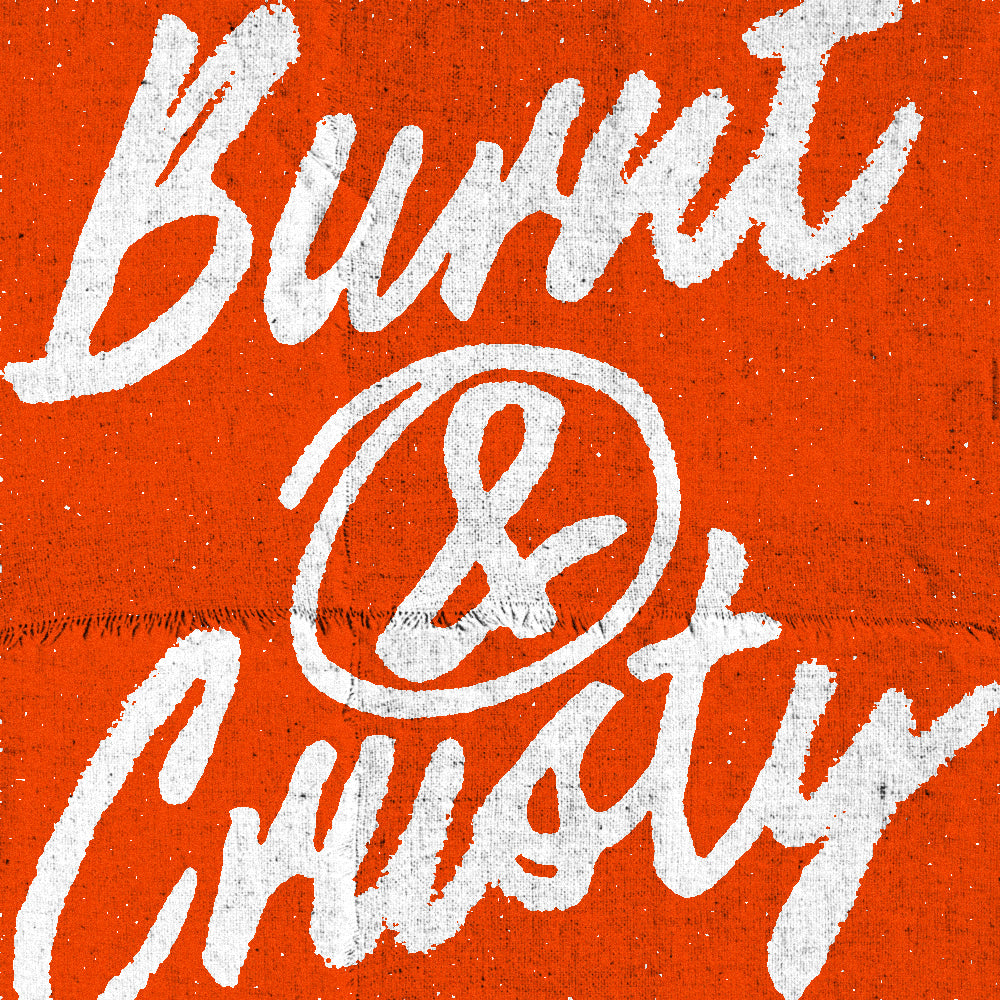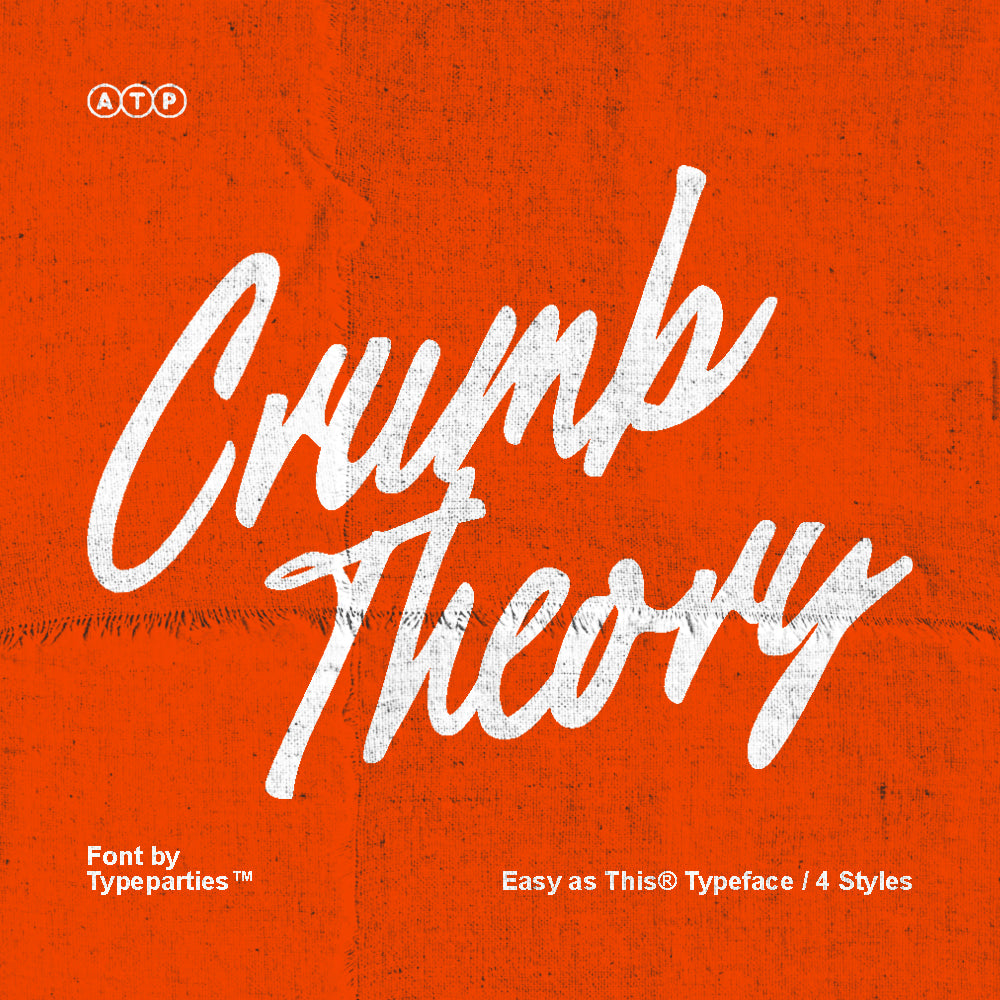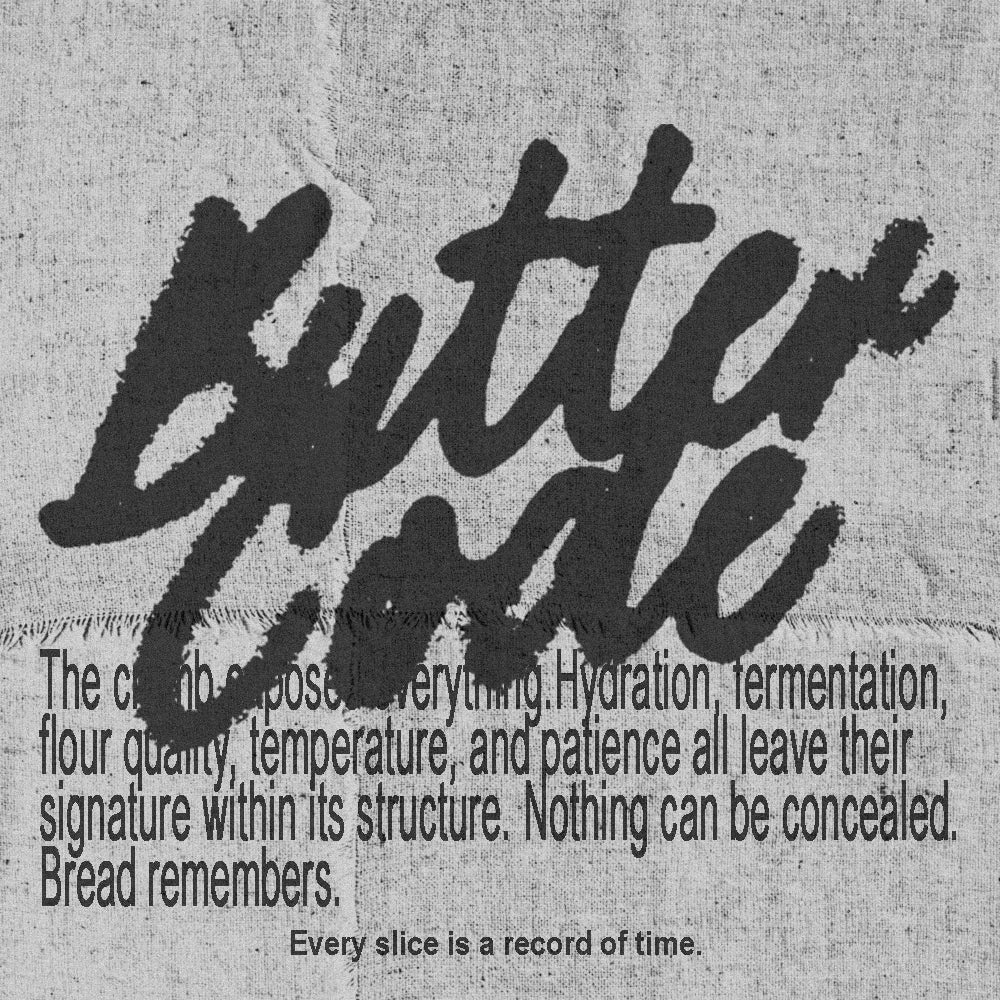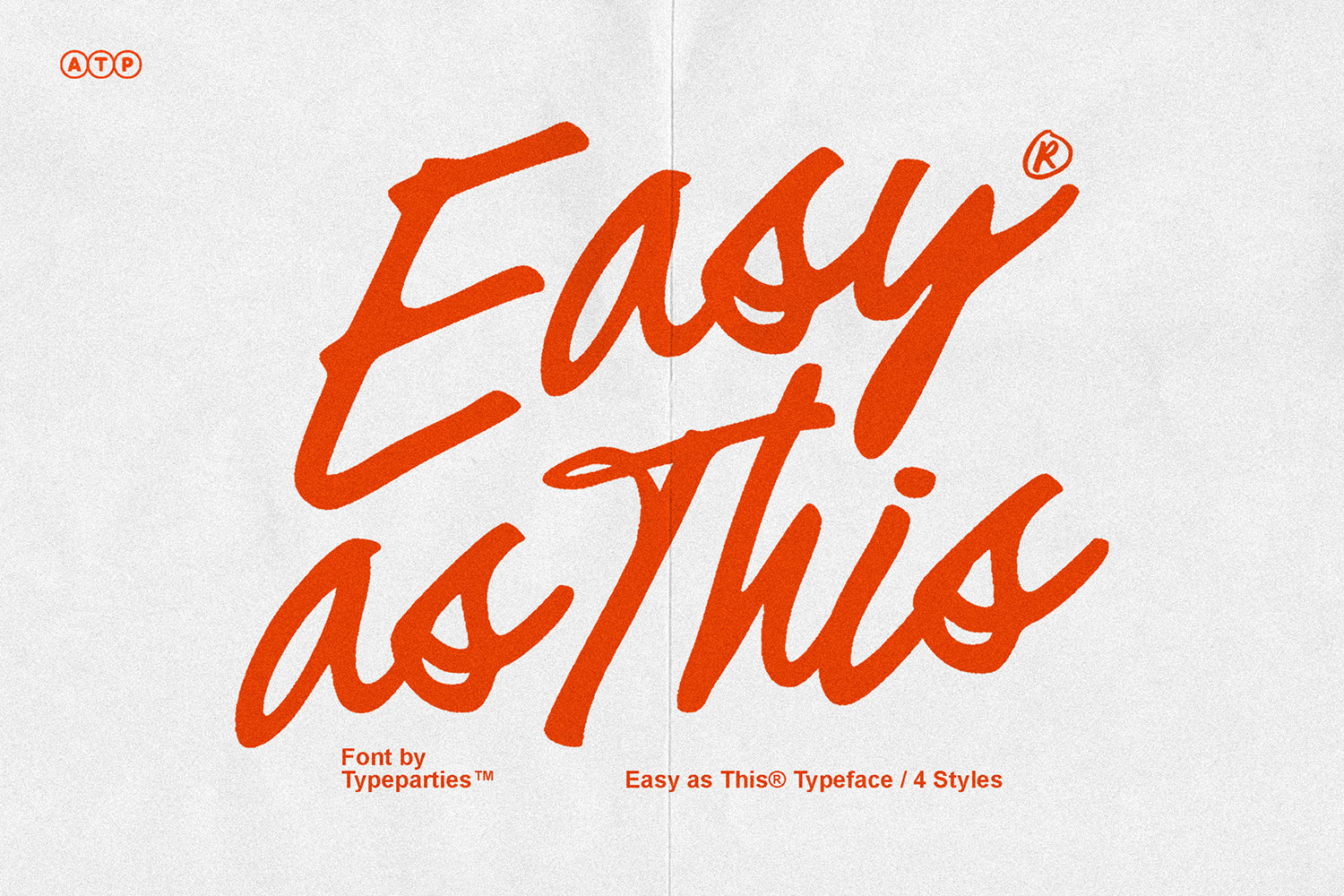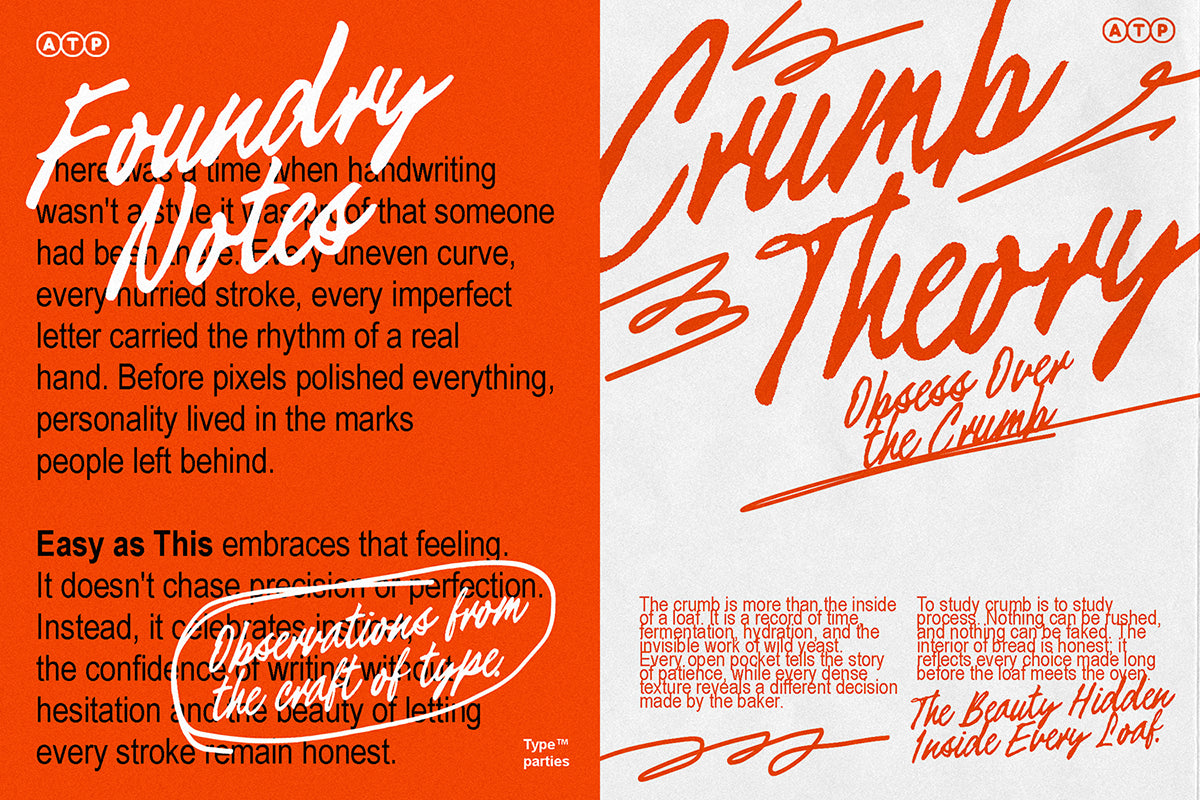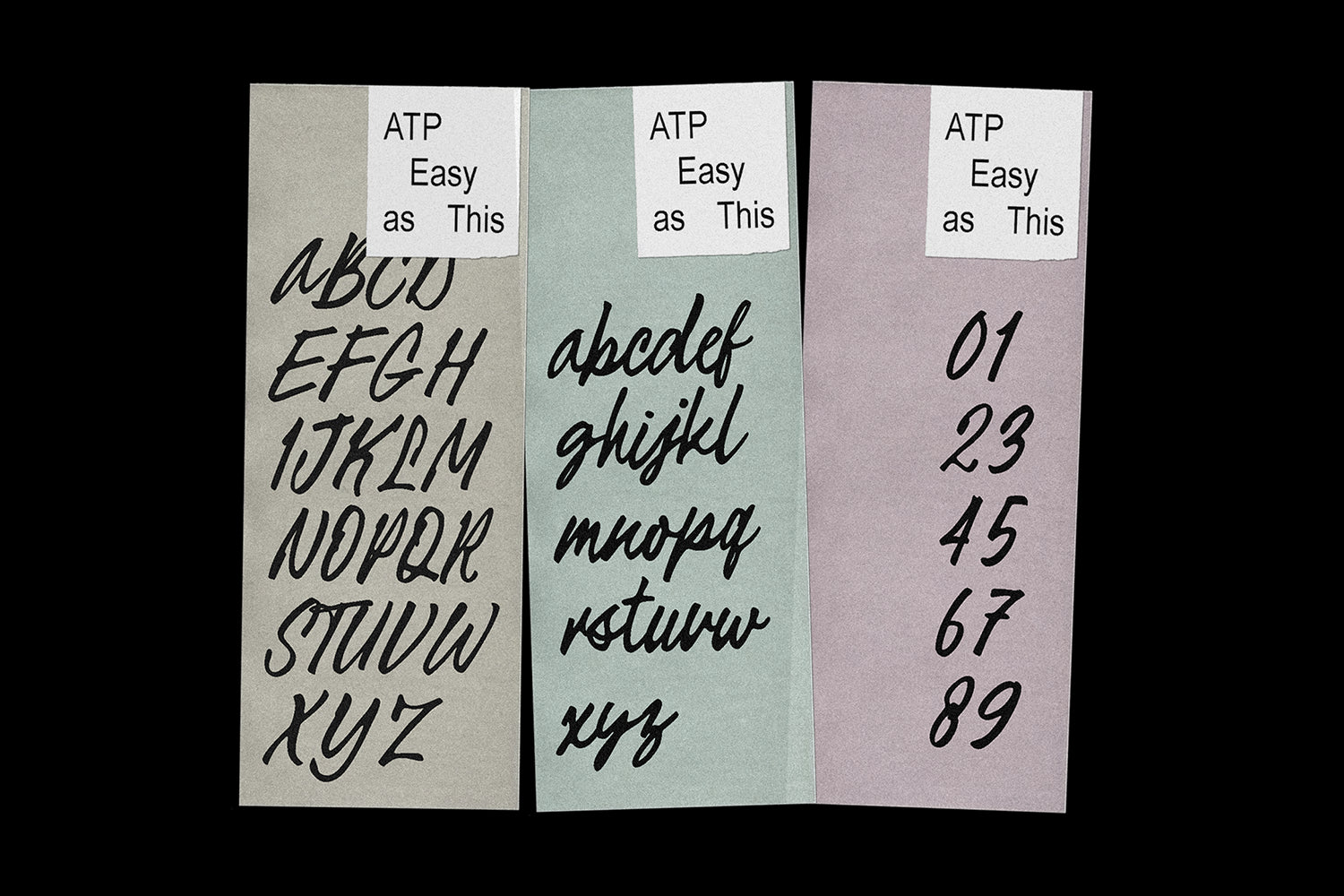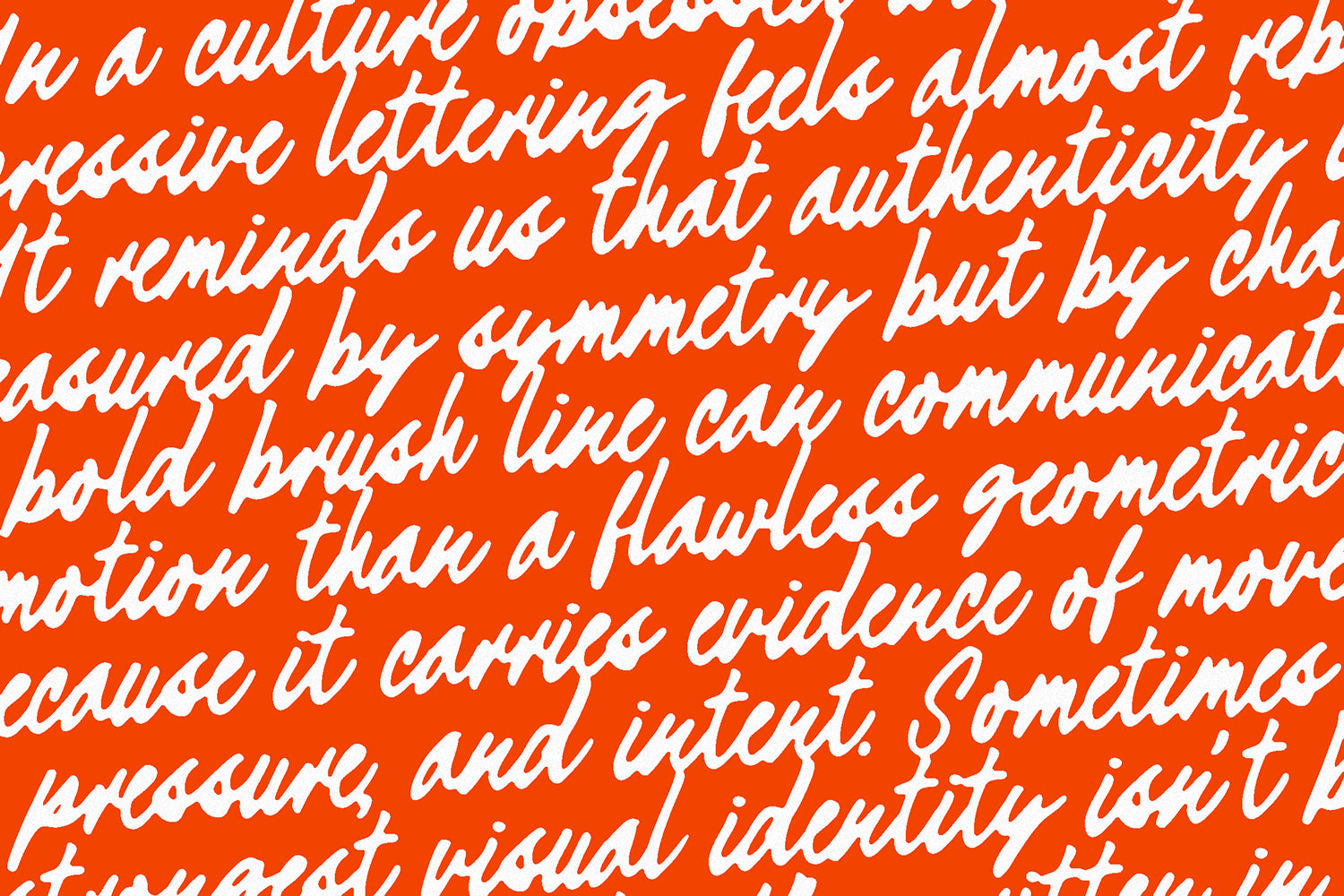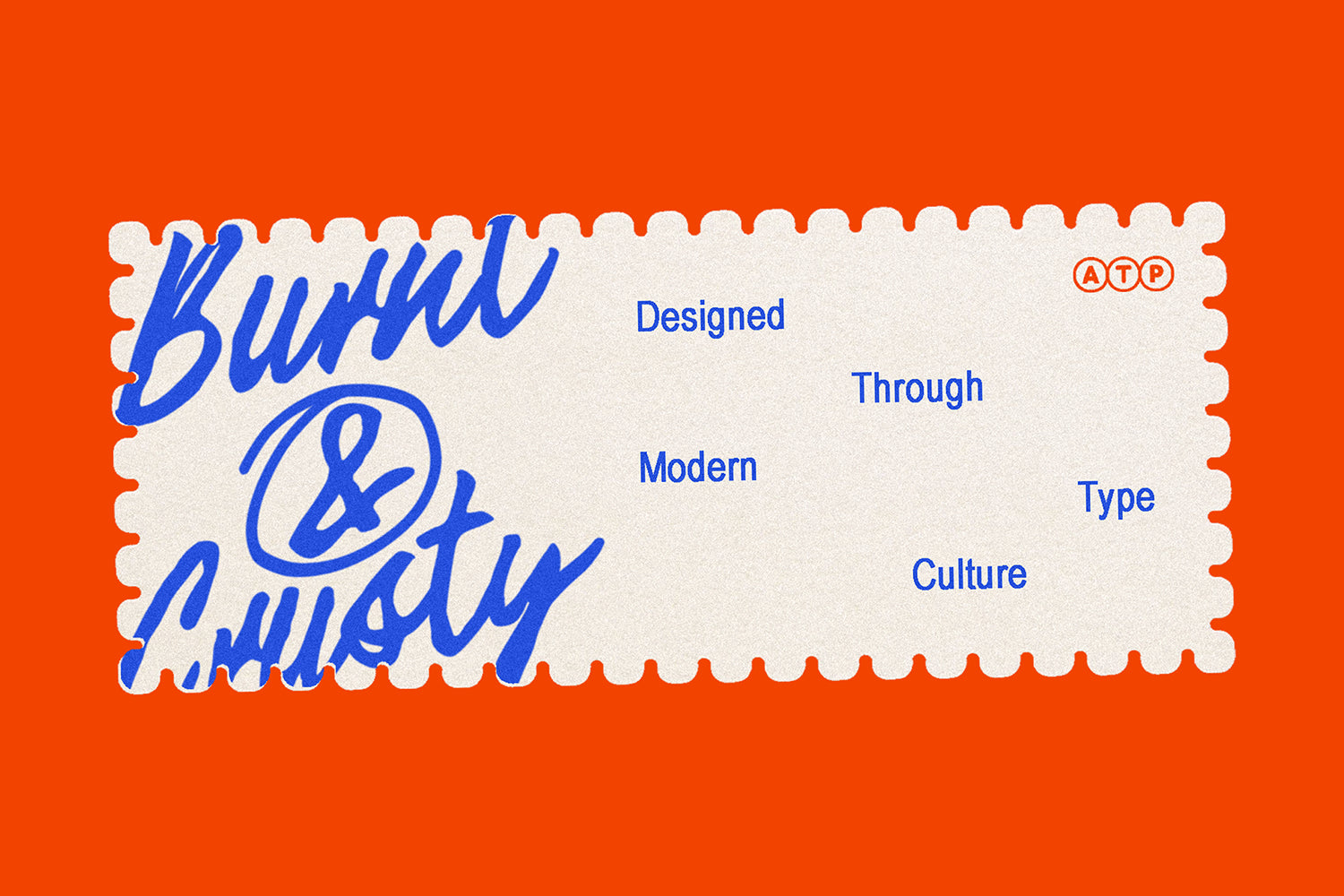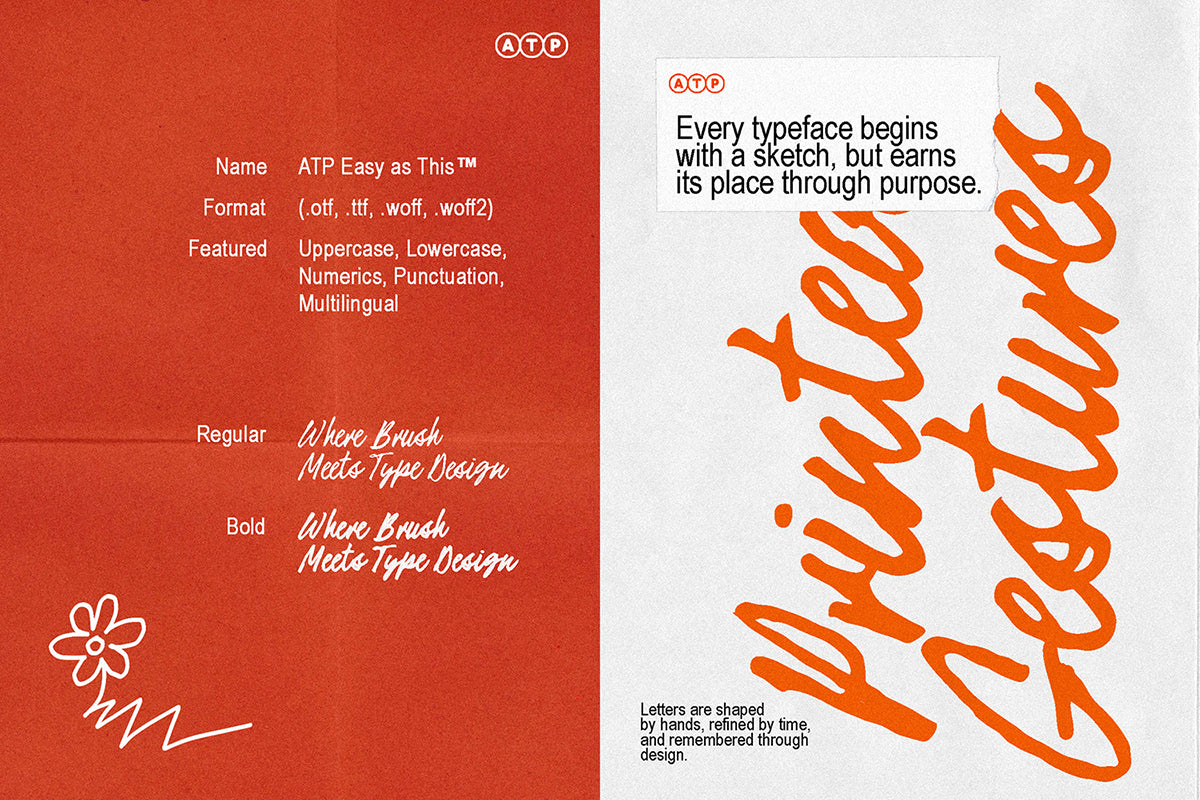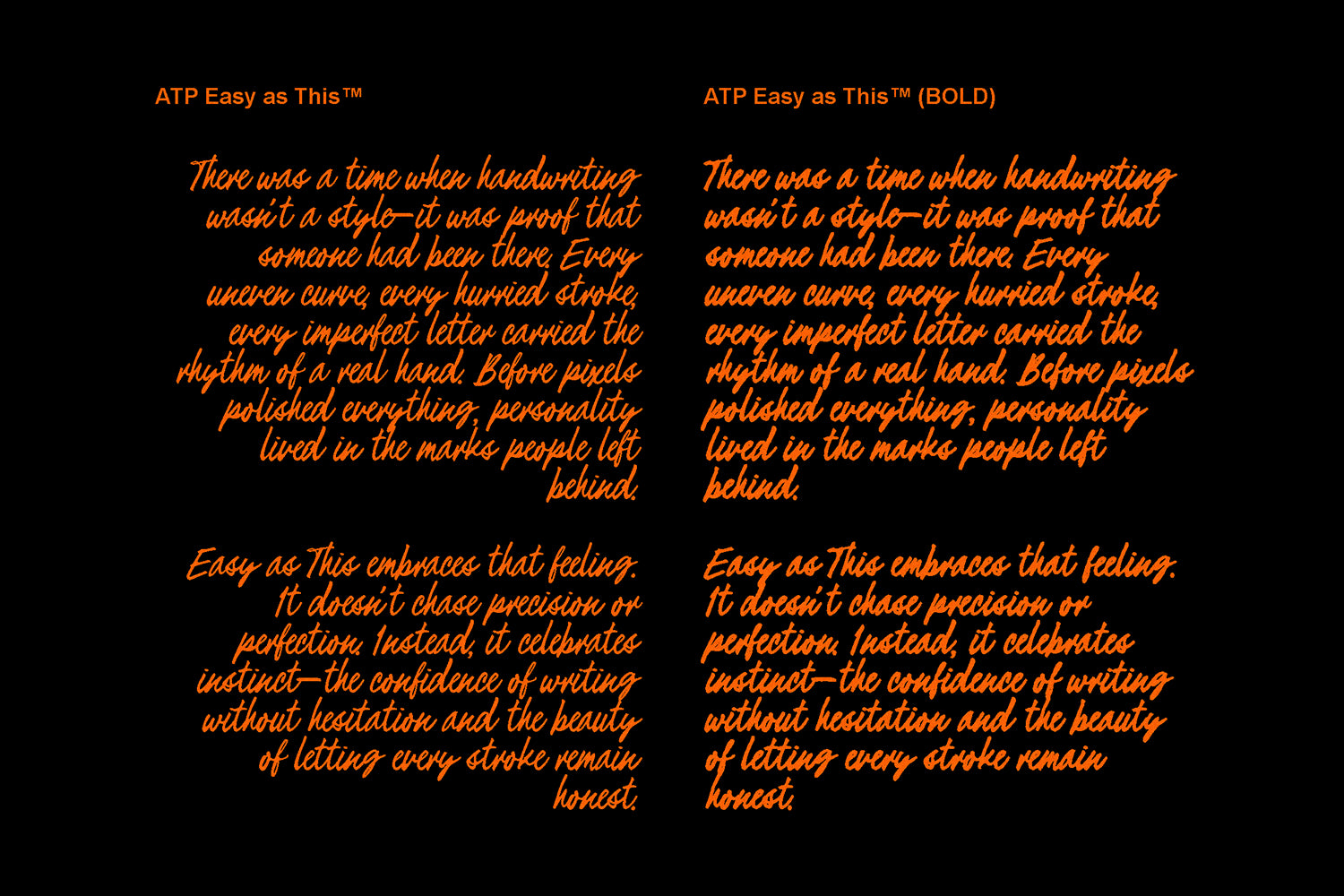
Easy as This - Handwritten Brush Script Font
Easy as This is a bold handwritten brush script that captures the effortless energy of real marker strokes. Designed with expressive movement and natural imperfections, this typeface feels spontaneous, confident, and full of personality. Every curve carries the rhythm of quick handwriting, making your typography feel authentic rather than overly polished.
Whether you're creating branding, packaging, social media graphics, editorial layouts, apparel, posters, or café menus, Easy as This brings an organic and modern handcrafted touch. It balances casual expression with strong visual impact, making it perfect for projects that need to feel approachable, energetic, and memorable.
This typeface comes in 4 versatile styles, giving you the flexibility to create layered typography, bold headlines, expressive logos, and creative compositions across both print and digital media.
• Uppercase
• Lowercase
• Numerics
• Punctuation
• Multilingual
**Easy as This** is a bold handwritten brush script font that features expressive movement and natural imperfections, designed to emulate the look of real marker strokes. It includes 4 versatile styles and supports uppercase, lowercase, numerics, punctuation, and multilingual characters, available in formats (.otf, .ttf, .woff, .woff2).